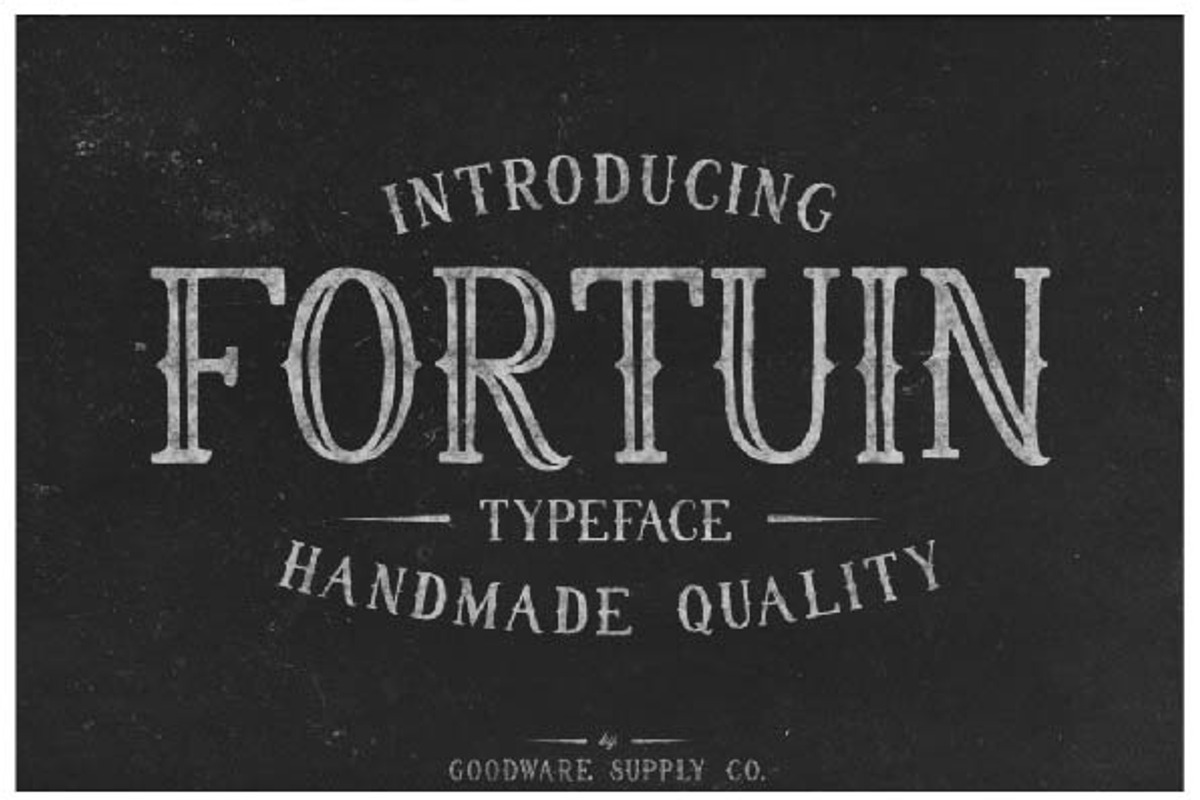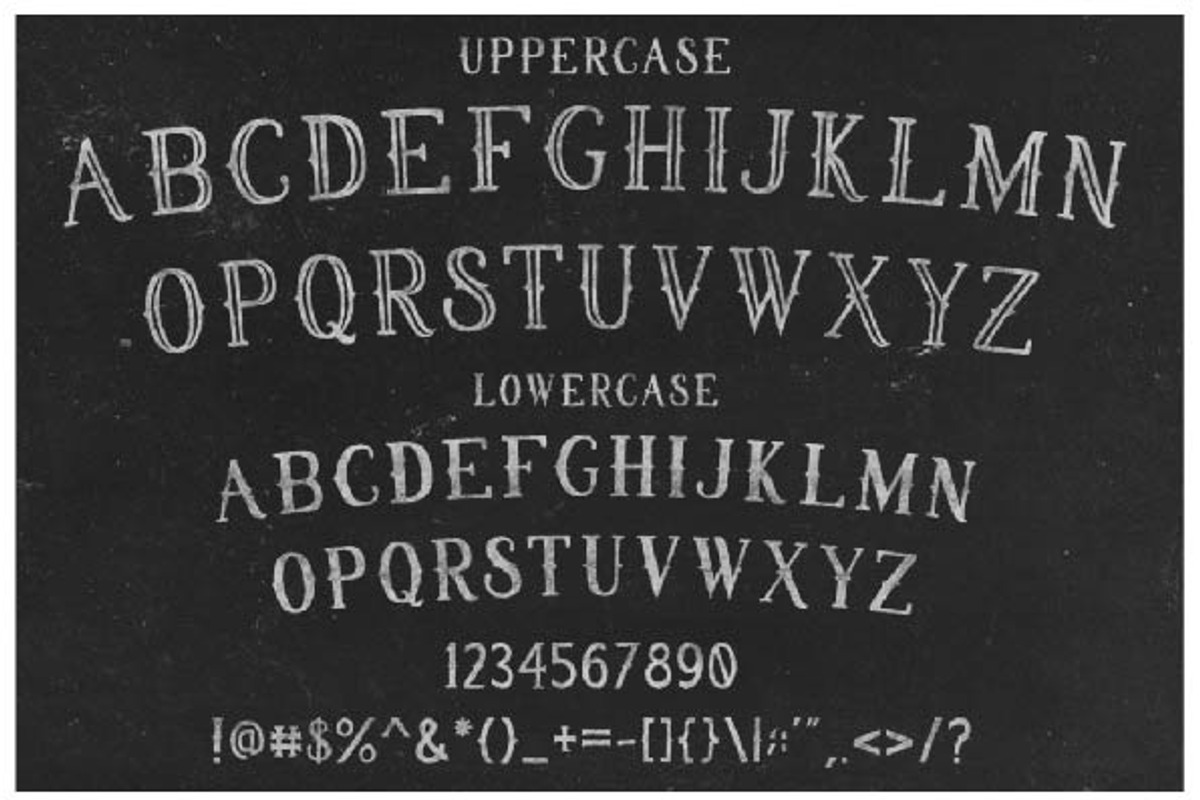
Fortuin Typeface
Fortuin Typeface by Tastype is a font selected for branding, posters, packaging, typography.
Why Fortuin Typeface is worth a look
Fortuin Typeface by Tastype fits naturally into Branding, posters, packaging, typography.